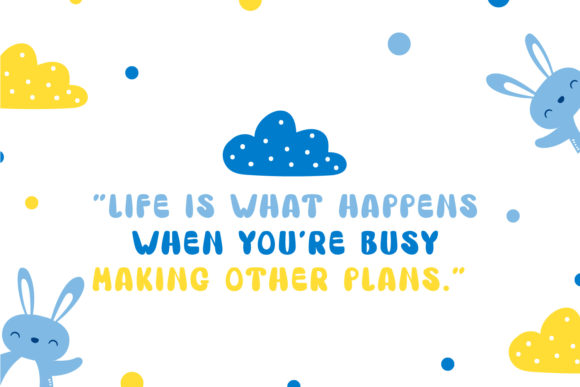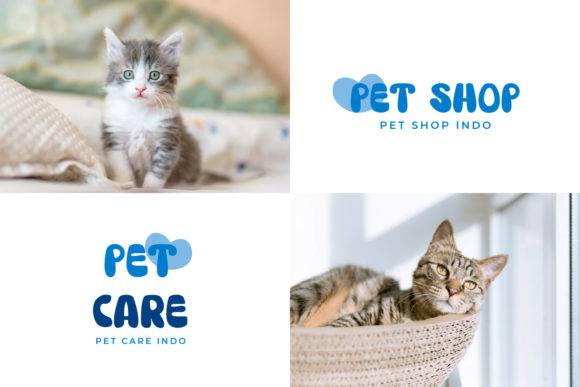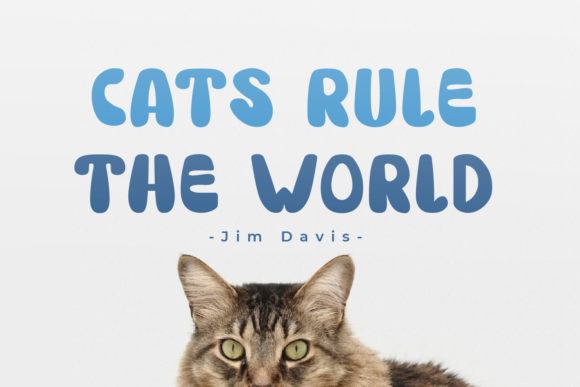
Introduction to Sinky Font
Remember that moment when you stumbled upon the perfect font for a project, and it instantly elevated the entire design? For designers, finding the right font can be a game-changer. It’s the difference between a good design and a great one. That’s exactly what Sinky Font can do for your next creative project.
As a design resource, Sinky Font is a standout choice for anyone looking to add a touch of playfulness and authenticity to their work. With its cute and colorful display style, it’s perfect for kids’ activities, school projects, or any design that needs a bit of whimsy. Whether you’re working on a flyer, poster, or digital graphic, Sinky Font is sure to bring your design to life.
Key Features of Sinky Font
- Unique, hand-drawn style with a transparent background, allowing for easy customization and layering.
- Includes a comprehensive set of characters, including uppercase and lowercase letters, numbers, and punctuation marks.
- Designed with a bold, expressive feel, making it perfect for use in headings, titles, and other display typography.
Honest Review: Sinky Font
As a designer, I’m always on the lookout for high-quality design resources to elevate my creative projects. Recently, I stumbled upon the Sinky Font, and I must say, it’s a great addition to any designer’s toolkit.
- ✨ Transparent background: The font’s transparent background makes it incredibly versatile and easy to work with, allowing me to layer it over images and other design elements with ease.
- ✨ High quality: The font’s design is crisp and clean, making it perfect for a wide range of creative projects, from logos to typography-based designs.
While the Sinky Font is a great resource, there are a few limitations to keep in mind:
- ⚠️ Limited style options: While the font itself is high-quality, the style options are somewhat limited, which may not be ideal for designers looking for a wide range of creative possibilities.
Sinky Font
Getting the Most Out of Sinky Font
To get the most out of Sinky Font, consider the following tips:
- Experiment with different font sizes and styles to achieve the desired visual effect.
- Use the font’s transparent background feature to create stunning text overlays.
- Combine Sinky Font with other design elements to create a unique and eye-catching visual identity.
Sinky Font is ideal for:
- Logo design and branding
- Social media graphics and posts
- Brochures and flyers
Alternatives to Sinky Font
A: To use Sinky Font with a transparent background, you’ll need to use a design software that supports transparent backgrounds, such as Adobe Photoshop or Illustrator. Simply select the Sinky Font and adjust the background settings to achieve the desired effect.
Q: Is Sinky Font suitable for high-resolution designs?
A: Yes, Sinky Font is designed to be highly legible and clear at various resolutions, making it an ideal choice for high-resolution designs, such as print materials, billboards, or digital displays.